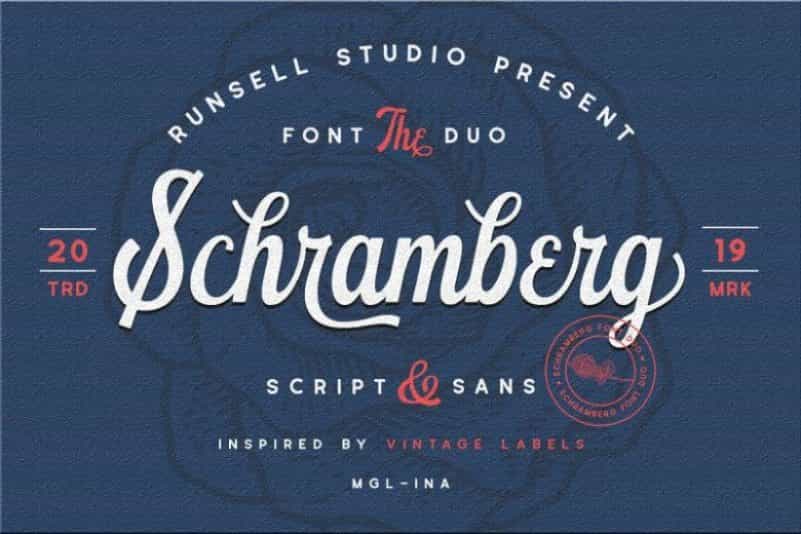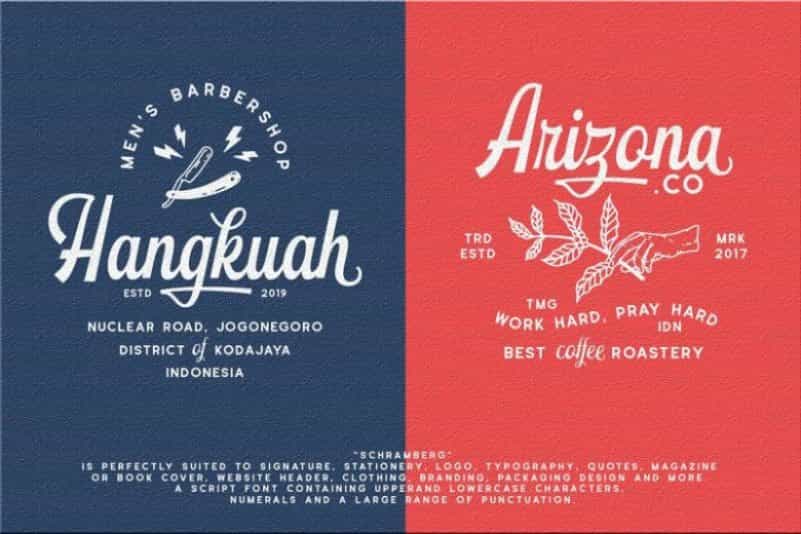
Discover Schramberg Font Duo, part of the Sans Serif Calligraphy collection—a versatile and unique font perfect for adding a personal touch to your projects. Download it for free and enjoy crafting designs with style, from invitations to social media posts. This font is available exclusively for personal use, giving you the freedom to create without limits. Unlock your creativity with Schramberg Font Duo today!
Presenting Schramberg Script and Sans. the new typeface based on the vintage labels and the integration with the modern design. Schramberg has stylistic alternate, contextual alternate and stylistic set. This Font include script and sans serif style that can be used to create your vintage design, t-shirt, logo, labels, badges, posters and etc.